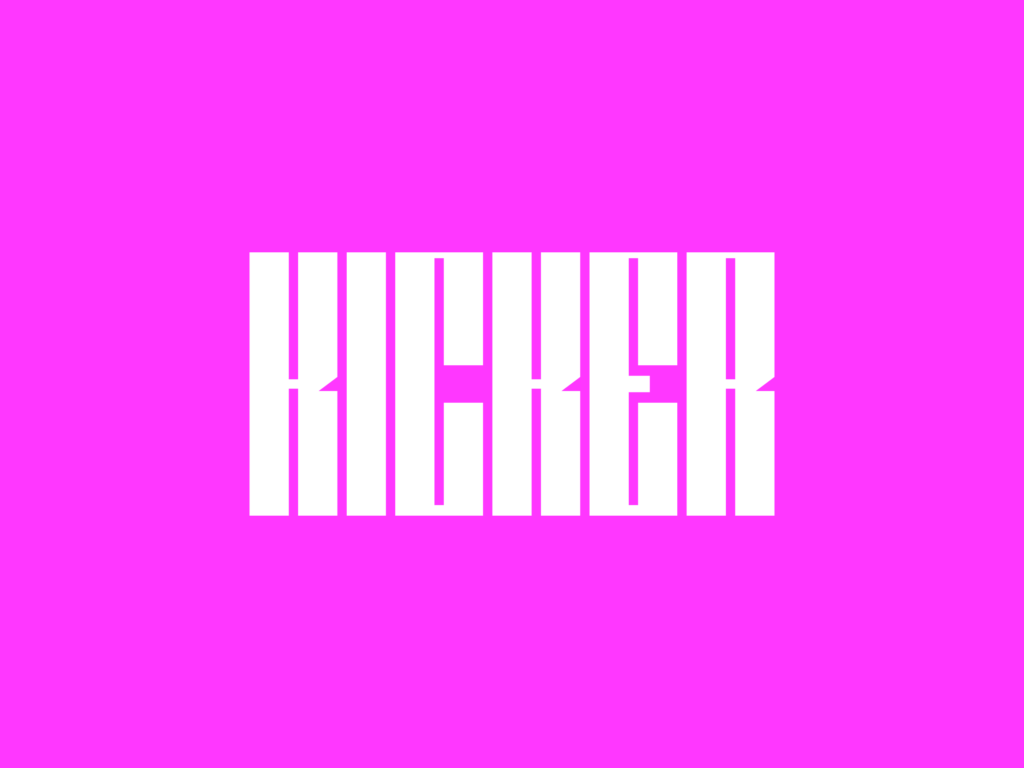
Kicker is a display uppercase typeface. Blocky, sharp and aggressive. Nice for headlines to catch the attention. Kicker available in two styles – regular and oblique. Enjoy!